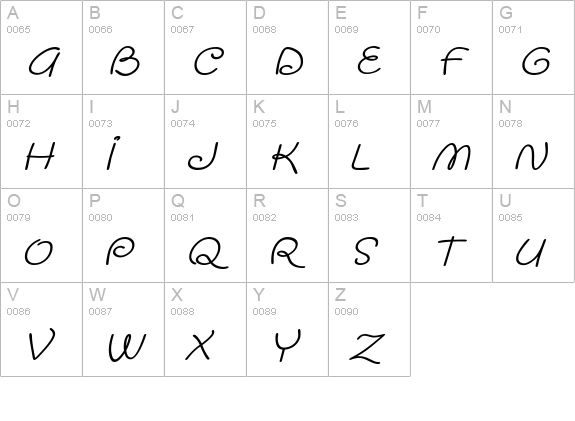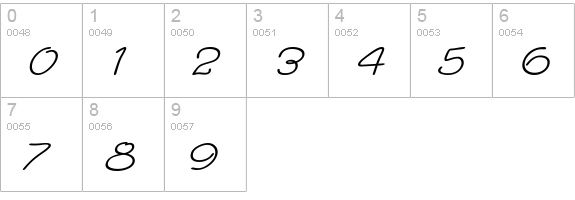
Morning Limerick BTN Oblique Font Details
Morning Limerick BTN Oblique is a distinctive, italic variant in the Morning typeface family \xE2\x80\x94 well suited to design and typography projects.
The Morning Limerick BTN Oblique font exudes a playful and whimsical charm, perfect for adding a touch of creativity to your projects. Its slanted design gives it a dynamic and energetic feel, making it ideal for headlines, quotes, and other attention-grabbing text. This font is freely available to download at FontsMarket.com, allowing you to easily incorporate its unique style into your designs without any cost. With Morning Limerick BTN Oblique, you can infuse your creations with a sense of fun and personality that is sure to captivate your audience.